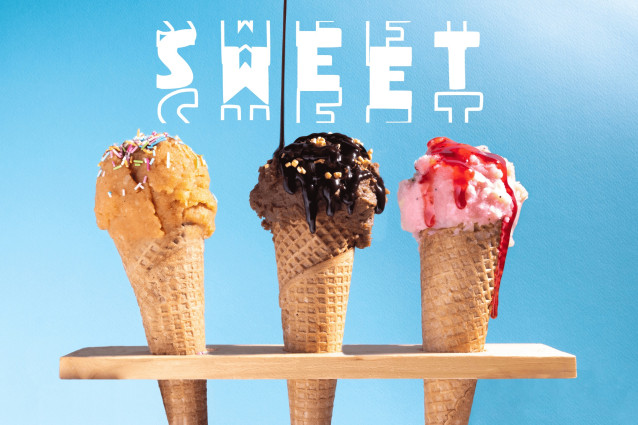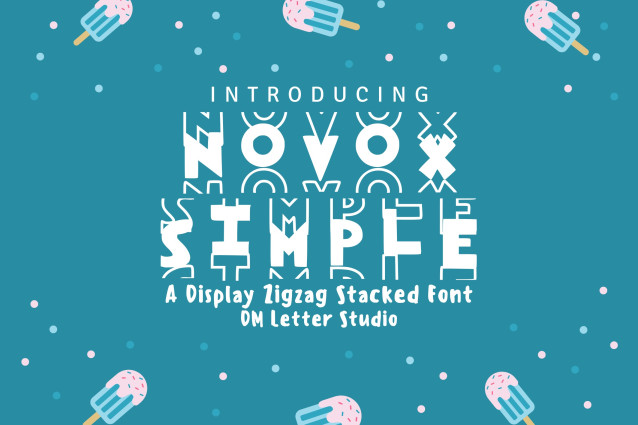
Novox Simple Font
Novox Simple Font is a playful and bold display font featuring a unique zigzag stacked layout. Its eye-catching structure and energetic personality make it a fantastic choice for headlines, poster art, party invitations, retro-themed graphics, and social media visuals. Designed to be fun yet functional, Novox Simple brings a sense of whimsy to any project while maintaining legibility and balance.